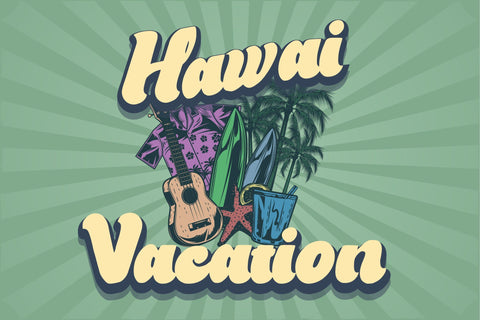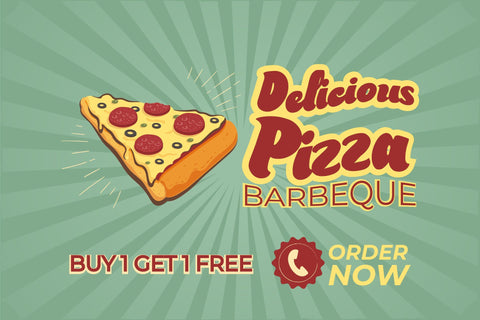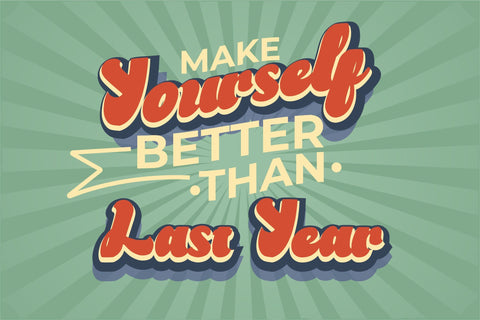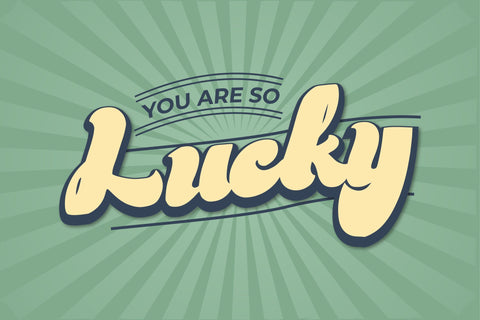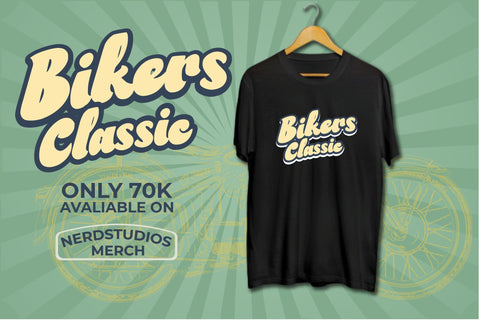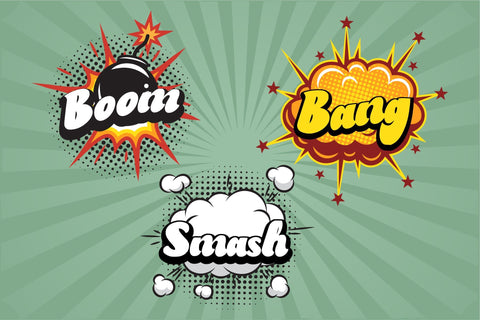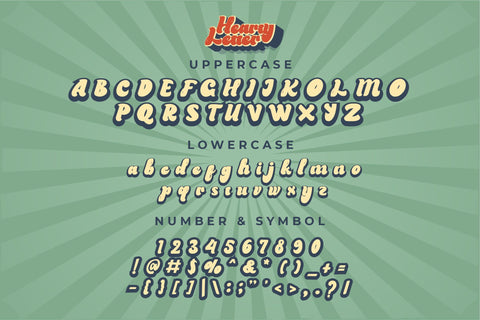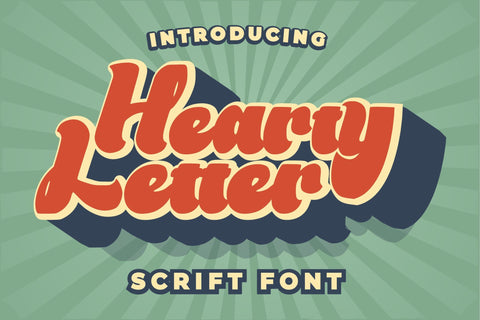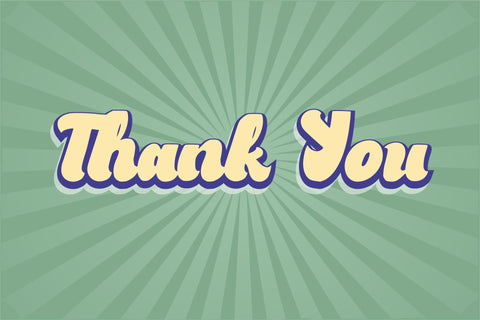
Hearty Letter Retro Font
Introducing,Hearty Letter Retro Font- a standout bold script with a touch of vintage look and feel. This type of font perfectly made to be applied especially in logo, headline, signage and the other various formal forms such as invitations, labels, logos, magazines, books, greeting / wedding cards, packaging, fashion, make up, stationery, novels, labels or any type of advertising purpose.